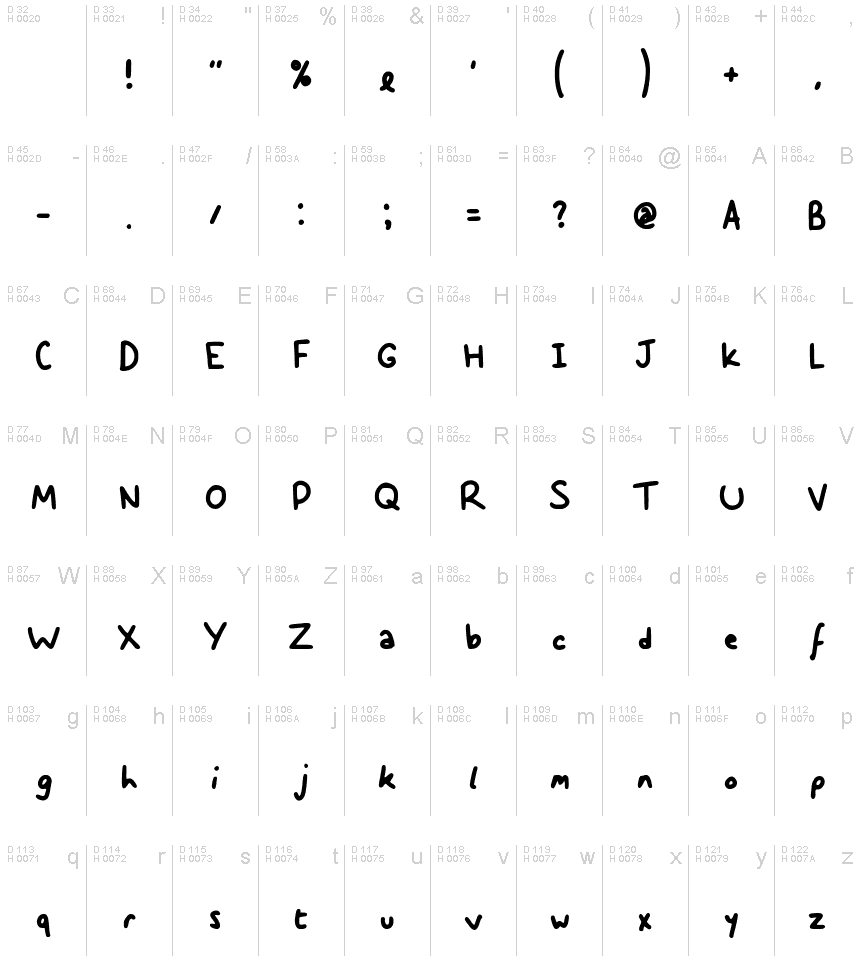
Dobson_p Regular
Dobson is the perfect semi-bold font for anyone in search of a beautiful, handwritten typeface. Designed by Pete Dobson, this font boasts an effortless charm and elegance that will add a touch of personality to any project. With its flowing lines and unique curves, Dobson is ideal for everything from wedding invitations to social media graphics. This font is versatile enough to be used on websites, logos, branding materials and more. Whether you're designing a magazine spread or creating an eye-catching poster, the Dobson typeface will make your content stand out with its authentic feel and artistic flair.